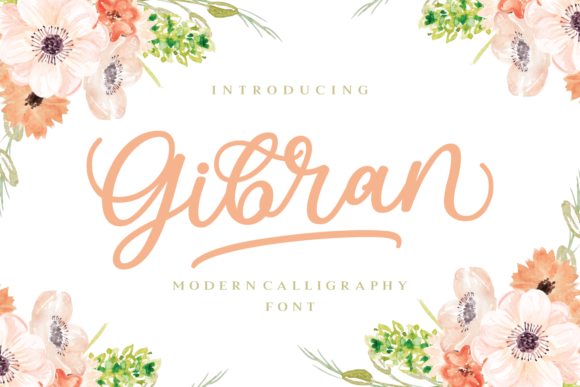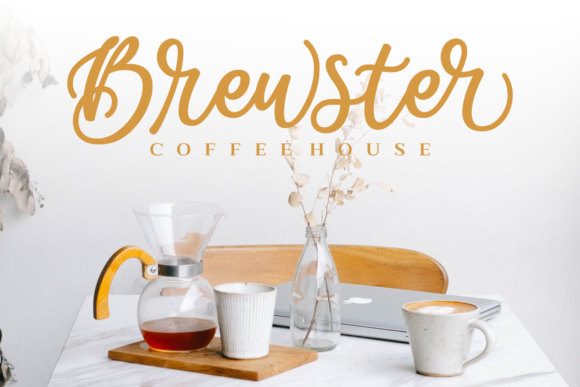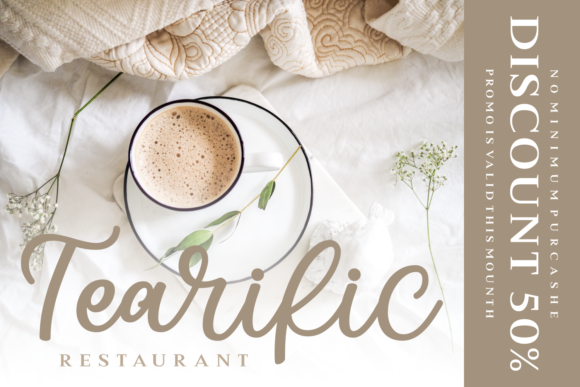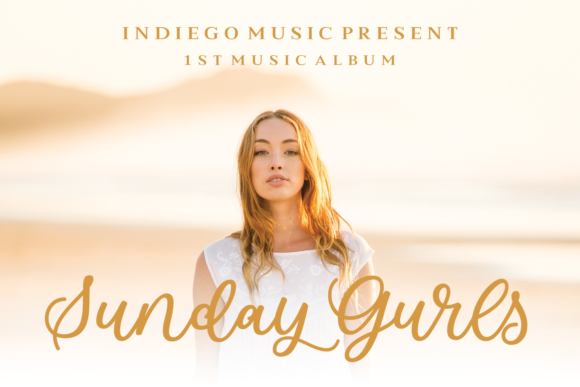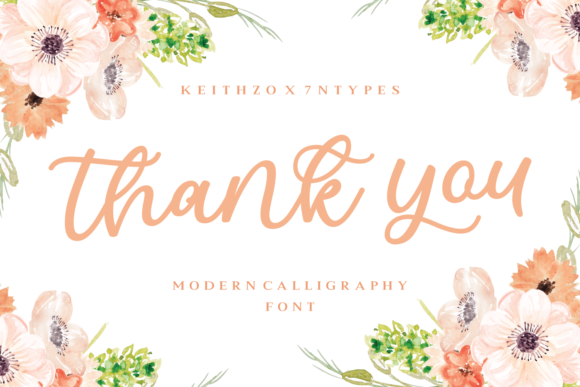
Gibran Font
About Gibran Font
The Gibran is a modern calligraphy font. Its letters have a good readability while maintaining its elegant style. It contains beautiful swashes which will give your design an feminine, yet striking touch.